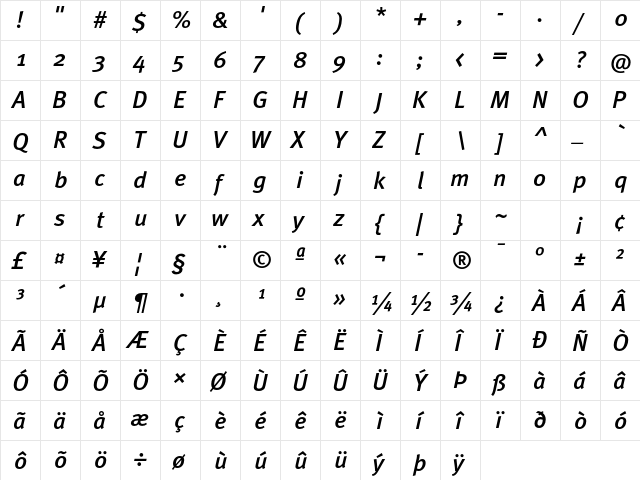
MetaPro-MediumItalic Regular
| Foundry | FSI Fonts und Software GmbH |
| Designer | Erik Spiekermann |
Design Context for MetaPro-MediumItalic Typeface
MetaPro-MediumItalic offers clean, dependable letterforms without strong stylistic allegiance, making it a practical choice for designers who need flexibility. Its italic angle brings a sense of urgency and motion to the letterforms.
Pro Tip: Use MetaPro-MediumItalic for emphasis, pull quotes, and subheadings where its slanted energy can add rhythm to the layout.